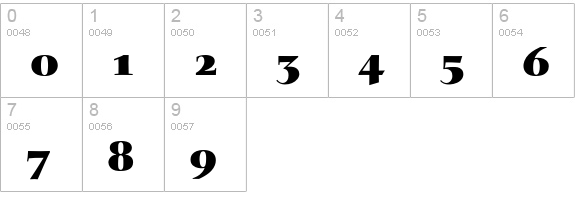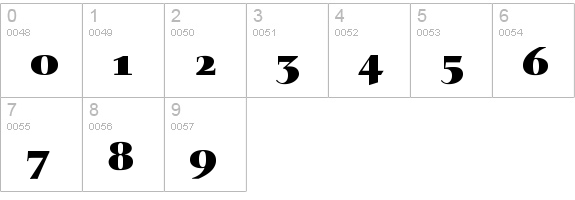
Nofret Expert BQ Bold OsF Font Details
Nofret Expert BQ Bold OsF is a strong, high-contrast variant in the Nofret typeface family \xE2\x80\x94 well suited to headlines, attention-grabbing titles, and strong calls-to-action.
Nofret Expert BQ Bold OsF font is a stunning and versatile typeface that exudes confidence and modernity. Its bold and impactful design makes it perfect for headlines, titles, and branding projects that require a strong visual presence. The sharp serifs and clean lines of this font give it a professional and sophisticated look, while its open and airy letterforms ensure readability and legibility in any setting. What sets Nofret Expert BQ Bold OsF font apart is its unique and distinctive character, which adds a touch of elegance and style to any design. Whether you're creating a sleek corporate identity or a standout editorial layout, this font will help you make a statement and leave a lasting impression on your audience. The best part? Nofret Expert BQ Bold OsF font is available for free download at FontsMarket.com. So go ahead and elevate your design projects with this beautiful and impactful typeface without breaking the bank. Download it today and unleash your creativity with Nofret Expert BQ Bold OsF font!